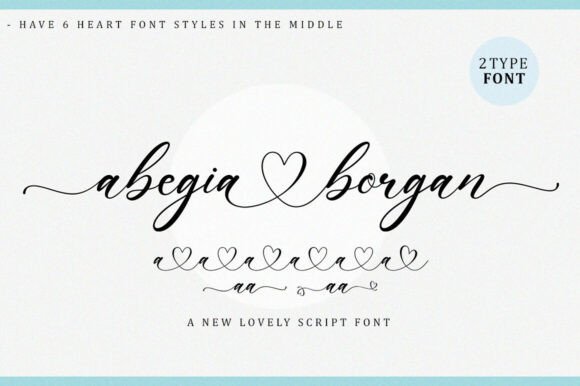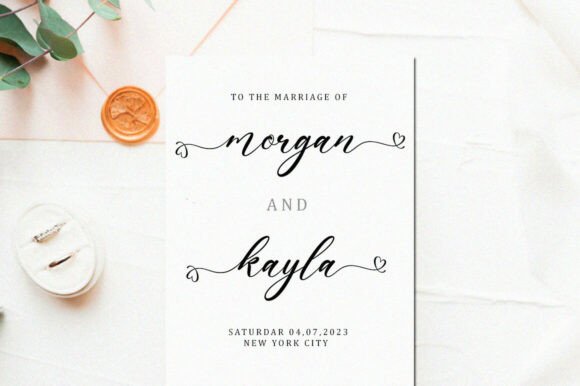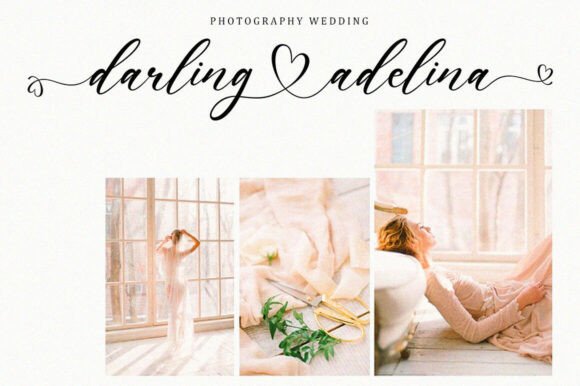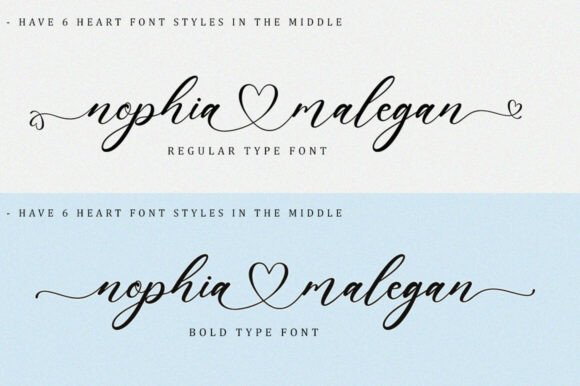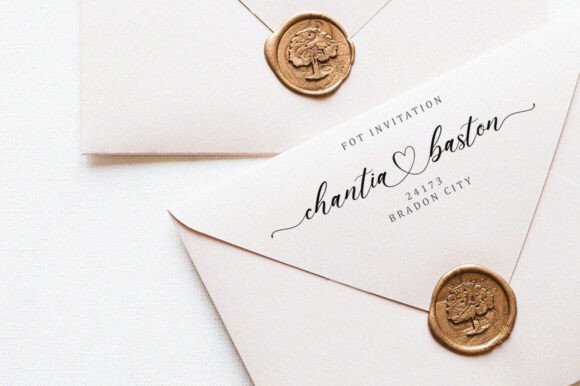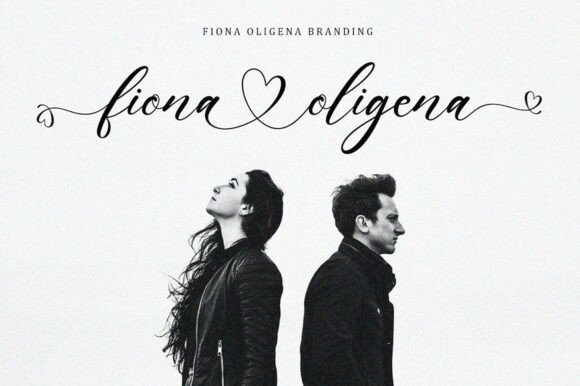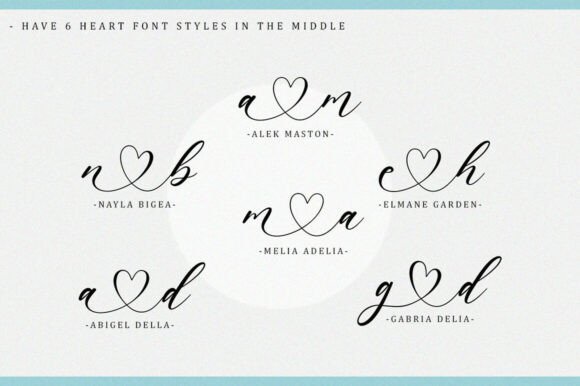
Love in Every Letter: The Enchanting Abegia Borgan Font
Have you ever sat down with a blank sheet of paper and a box of beautiful stationery, feeling inspired to create something special for a loved one? Maybe it was a wedding invitation, a birthday card, or a heartfelt letter. Whatever it was, you knew exactly what you wanted to convey: love, joy, and a deep connection. This is exactly what the Abegia Borgan Font is designed to help you achieve.
This lovely new script font is tailored to capture the essence of love and romance, making it the perfect tool for designers looking to create breathtaking invitations, save-the-dates, and personalized wedding logos. With its incredible versatility and six distinct heart-style ligatures, Abegia Borgan Font gives you the flexibility to create custom, hand-lettered designs that exude elegance and sophistication.
Whether you’re working on a high-end beauty brand, a jewelry boutique, or a floral shop, Abegia Borgan Font is the perfect choice for adding that special touch to your designs. Its professional finish and “handmade” charm make it an invaluable asset for any designer looking to create truly memorable pieces.
Abegia Borgan Font Key Features
- Font Family: Abegia Borgan
- Unique Characteristics: Abegia Borgan features a unique blend of modern and vintage elements, with a distinctive flair for the dramatic.
Abegia Borgan Font Review
Abegia Borgan Font is a unique and interesting font that caught my attention. I appreciate its versatility and the different moods it can evoke, ✨ from elegant and sophisticated to playful and whimsical. The font’s script-like characteristics add a personal touch, making it perfect for creating custom, handmade-looking designs. ✨ The numerous weights and styles available also make it easy to experiment and find the right fit for your project.
One of the things that works well for Abegia Borgan is its legibility. Despite its script-like appearance, the font is still easy to read, especially at larger sizes. The letterforms are also quite detailed, which adds to the font’s overall charm. ✨ Another advantage is its support for multiple languages, making it a great option for international projects.
While Abegia Borgan is a great font, there are a few limitations to consider. ⚠️ One of the main issues is its compatibility with older versions of Microsoft Office. Some users have reported issues with text rendering and formatting, which can be frustrating. ⚠️ Additionally, the font’s script-like characteristics can sometimes make it difficult to use in situations where precision is key, such as in technical writing or data visualization.
Overall, I think Abegia Borgan is a great addition to any designer’s toolkit. Its unique character and versatility make it perfect for a wide range of projects, from branding and marketing to editorial and creative writing. With a little experimentation and patience, you can unlock the full potential of this font and create some truly stunning designs.
Tips for Getting the Most Out of Abegia Borgan
To get the most out of Abegia Borgan, try using it in combination with other elegant fonts to create a sophisticated look. You can also experiment with different font sizes and styles to add emphasis to your text.
Abegia Borgan is perfect for:
- Book covers and publishing materials
- Wedding menus and place cards